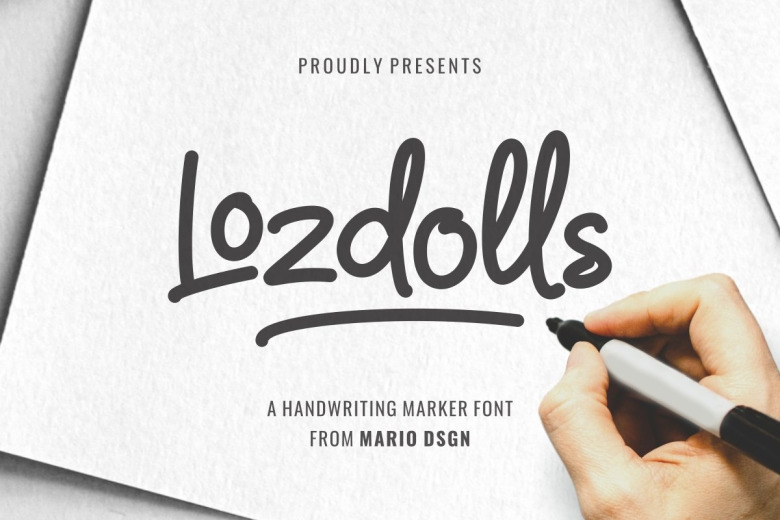
Lozdolls Font
Lozdolls Script Font is a handwritten font that’s bold letters look like they have been written with a marker pen. An authentic and versatile font that is perfect for your creative project such as logo and branding, invitation, flyer, social media design, label and packaging, and so much more!